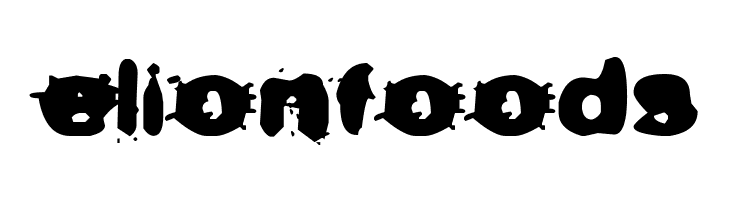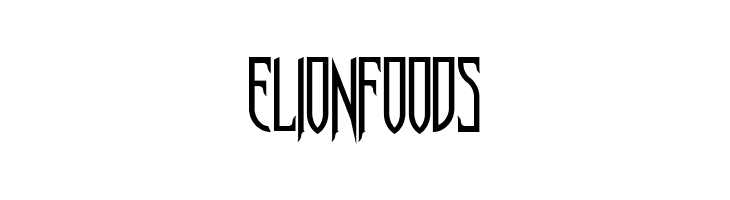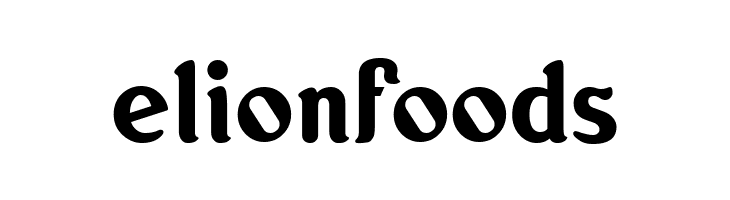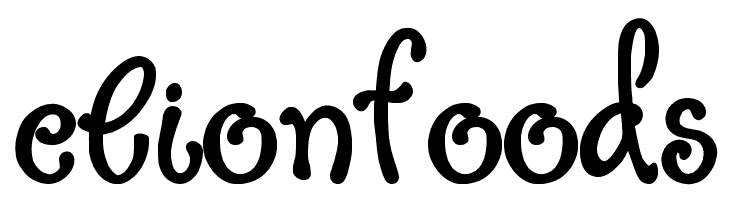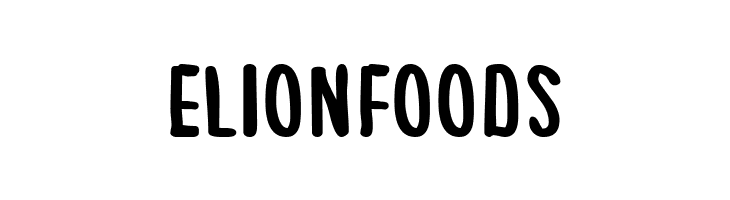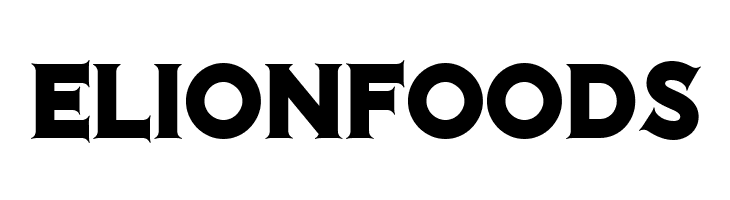
A modern, sleek font with elongated, narrow characters and clean lines.
A bold, modern font with rounded edges and uniform thickness.
A bold, modern font with a geometric and condensed style.
A bold, serif font with a classic and authoritative style.
A gothic, elongated font with sharp serifs and a dramatic presence.
A playful, whimsical script font with interconnected, rounded letters and a handwritten aesthetic.
A bold, angular serif font with a modern edge.
A bold, grunge-style font with splattered, irregular edges.